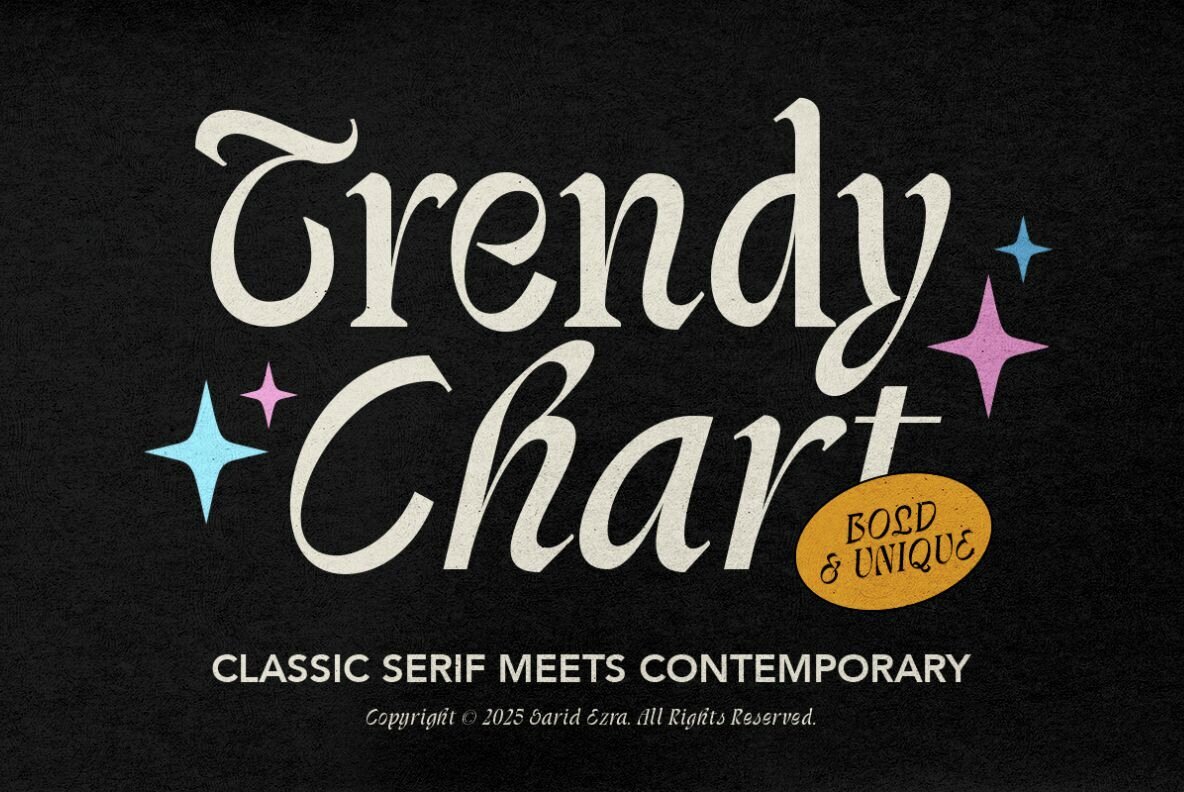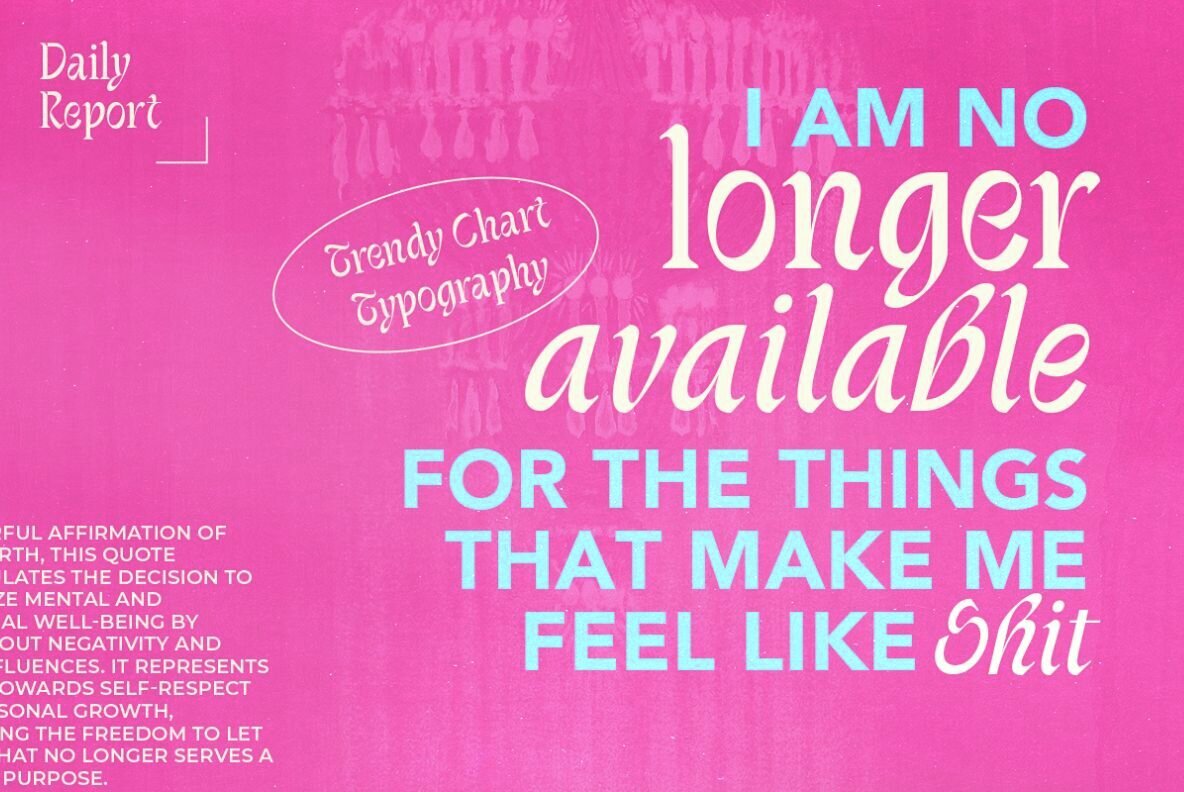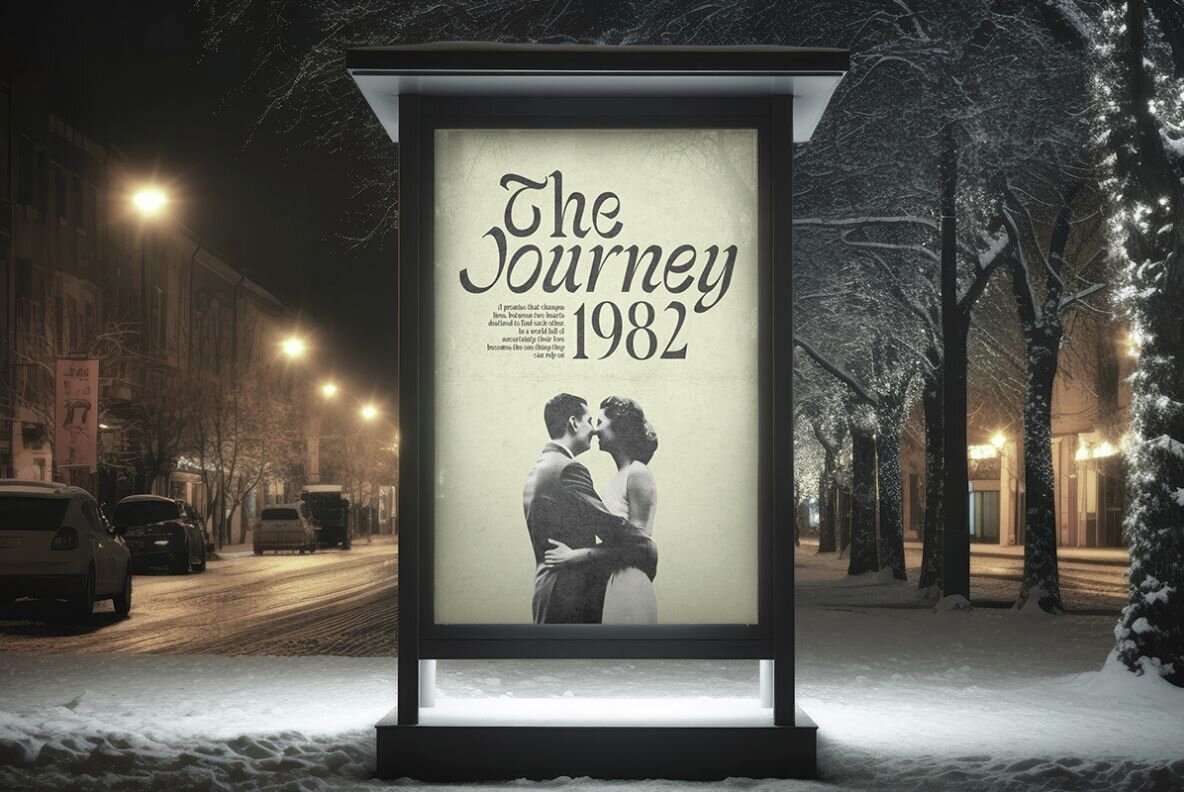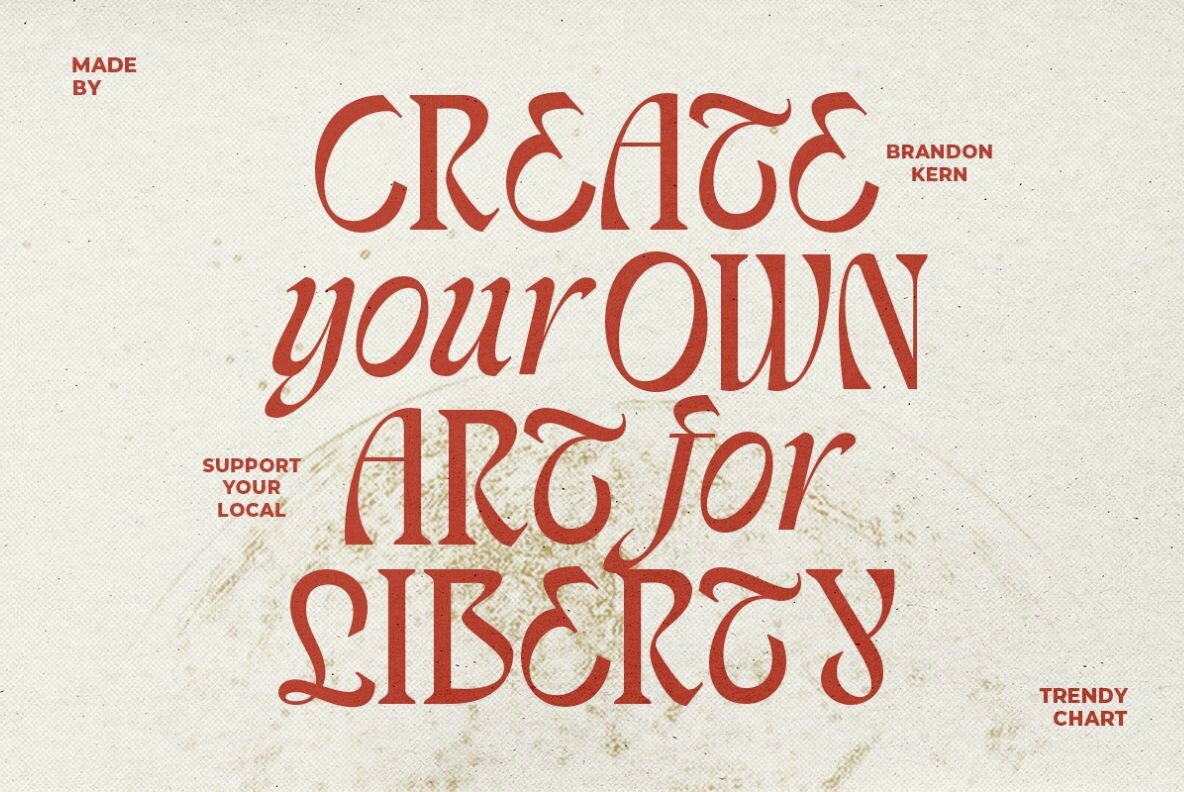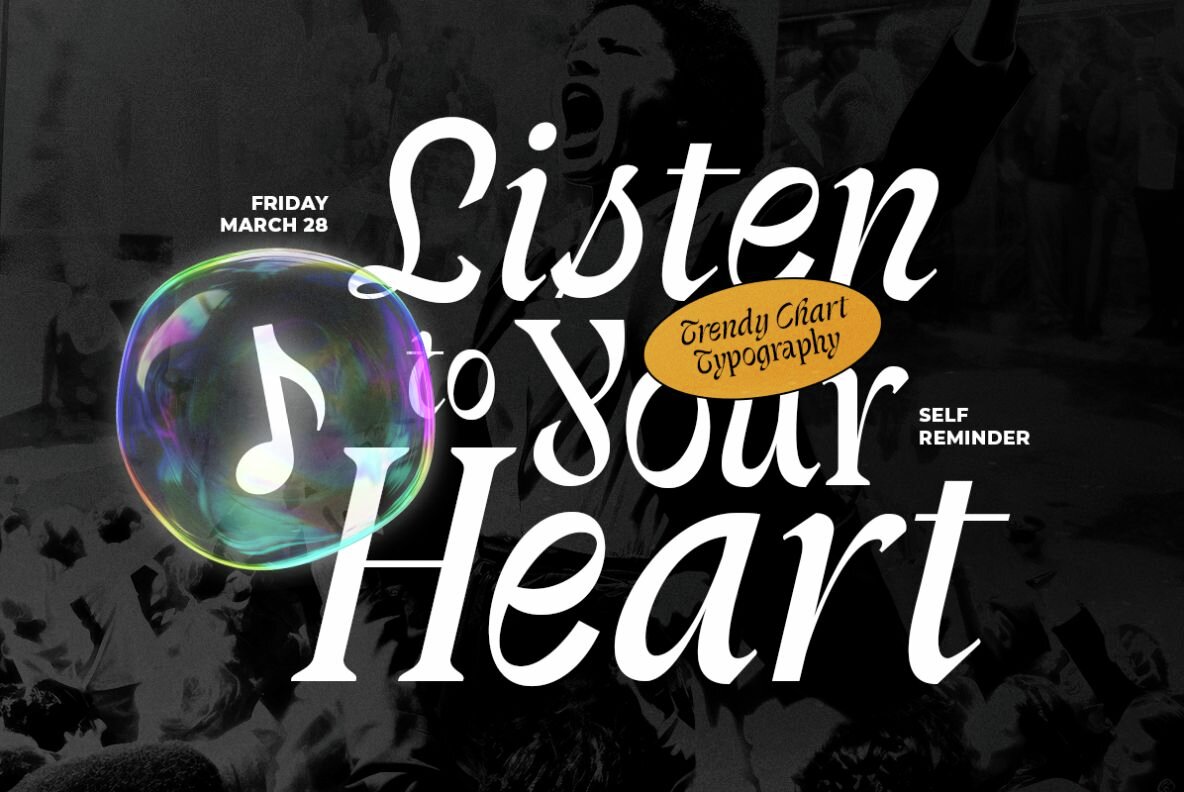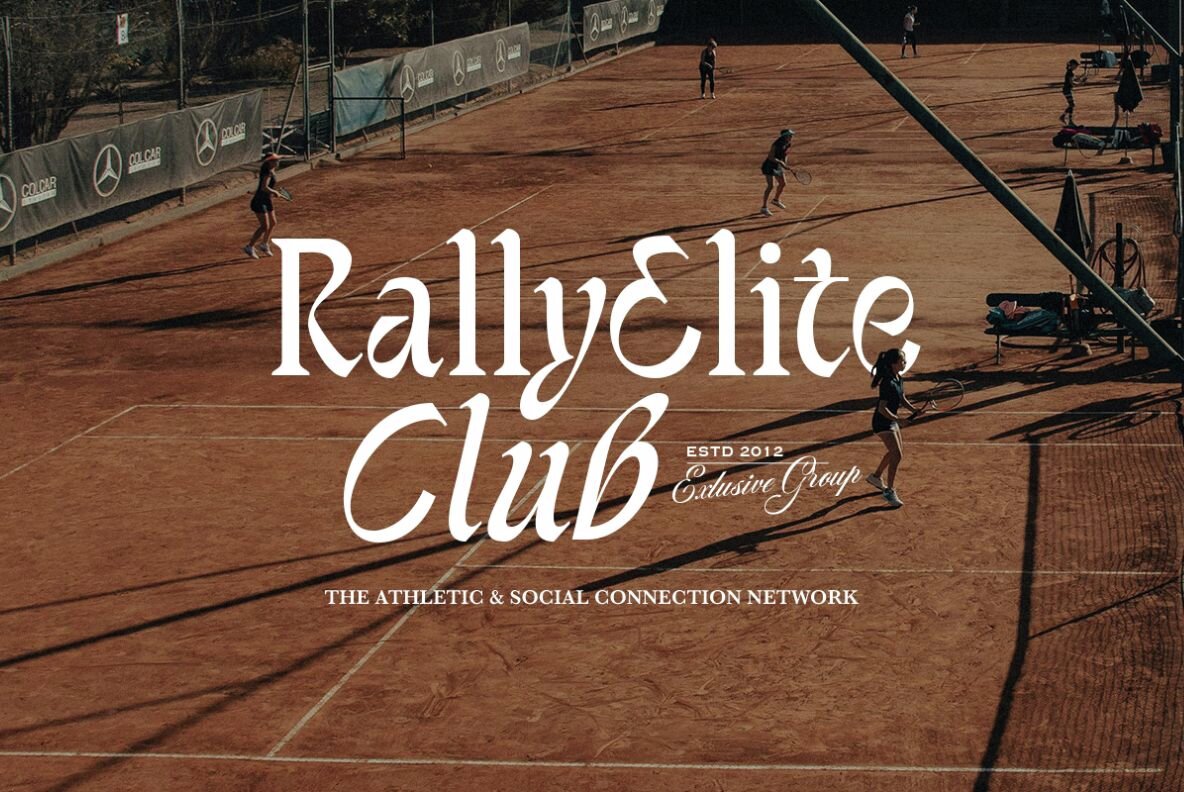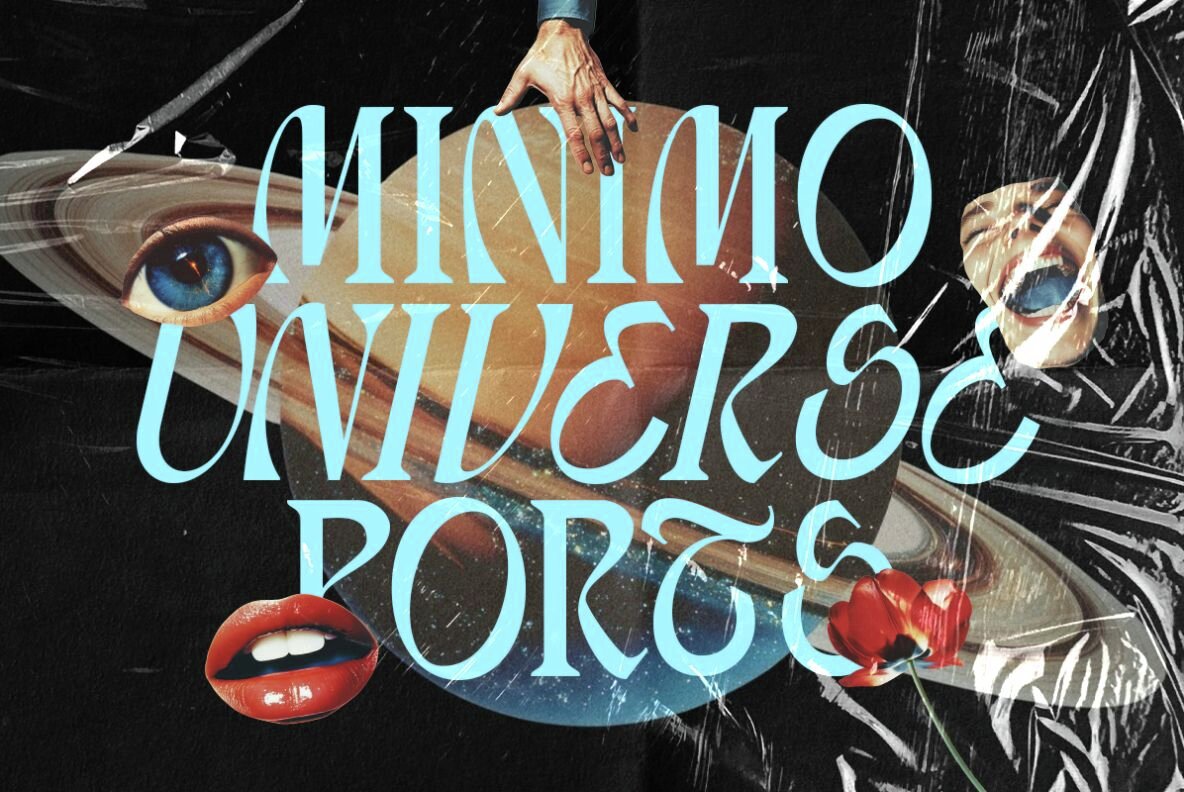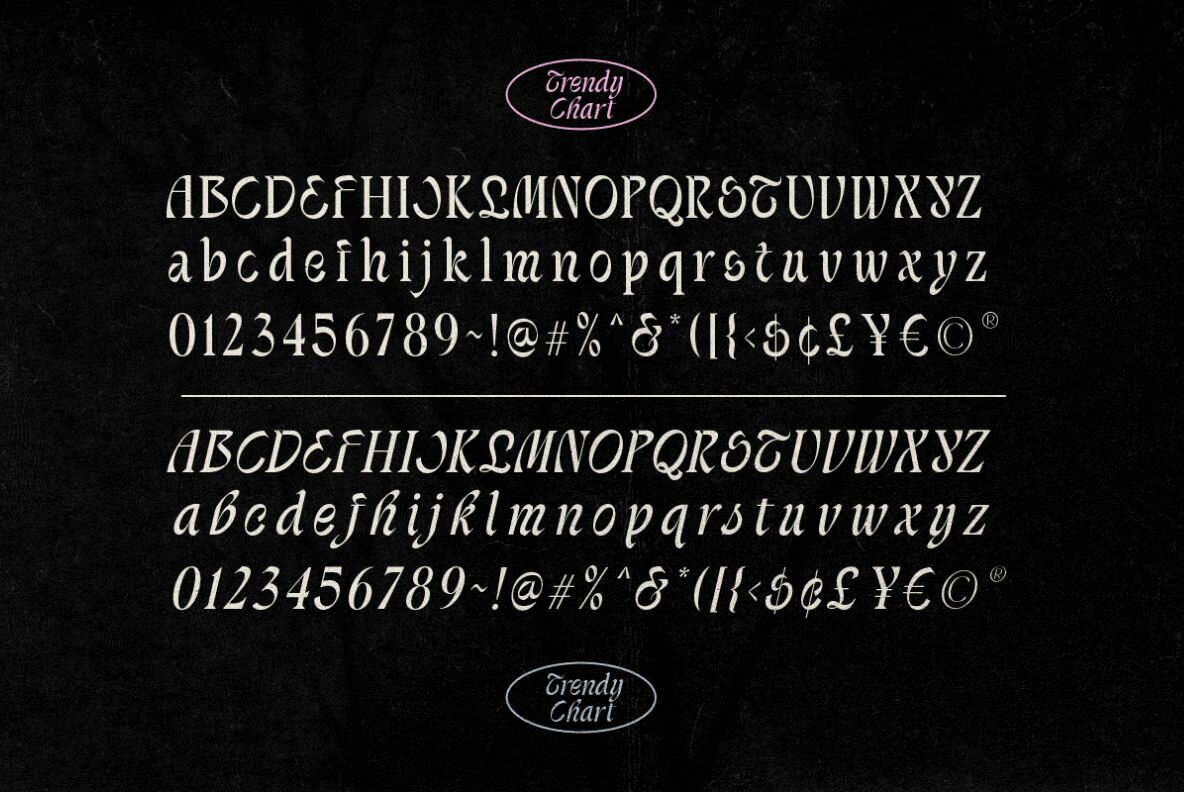
Trendy Chart Font
Trendy Chart captures attention with its distinctive boldness and clever serif design, infusing projects with a fresh visual energy. Crafted with an eye for impactful design, its shapes stand out, lending a striking touch to everything from branding initiatives to editorial layouts. In addition to its strong presence, the font features an italic variant, offering a dynamic pairing that enhances visual interest. This flexibility ensures your designs remain both sophisticated and memorable. Moreover, Trendy Chart accommodates a diverse audience with its multilingual support, broadening the accessibility of your message.Trendy Chart: Bold Serif with Uniquely Stylish Flair